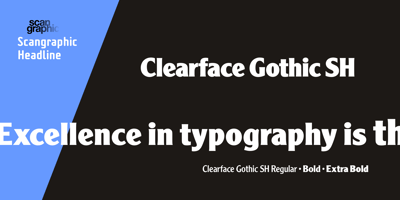
The Clearface Gothic SH Font is an excellent choice for designs that demand a classic, robust, and highly legible sans-serif aesthetic with a touch of vintage warmth. Imagine it gracing the headlines of traditional advertisements, adding an authoritative yet inviting feel to corporate branding, or bringing a distinctive, timeless vibe to editorial layouts. It's also perfectly suited for captivating poster designs, impactful packaging, and any project where you want to convey reliability, heritage, and a sense of enduring quality. With its strong, clear forms and often slightly humanist influences, the Clearface Gothic SH Font is ideal for projects that aim for visual prominence and a memorable, dignified impression.
What makes the Clearface Gothic SH Font truly exciting is its remarkable ability to blend established typographic principles with a warmth that makes it incredibly inviting. It feels both strong and approachable, ensuring your message is not just seen, but respected and understood with ease. This font is designed for excellent legibility across various applications, from commanding headlines to supportive sub-text. It injects a sense of classic gravitas and dependable clarity into your designs, making it a reliable workhorse for a wide array of creative and business applications. The Clearface Gothic SH Font Free Download offers a fantastic opportunity to infuse your projects with this distinctive character.
The Clearface Gothic SH Font family is typically designed to offer a comprehensive range of weights and styles, maximizing its adaptability for diverse design requirements. While specific family members can vary, you can often expect to find:
• Clearface Gothic SH Thin
• Clearface Gothic SH Light
• Clearface Gothic SH Regular
• Clearface Gothic SH Medium
• Clearface Gothic SH SemiBold
• Clearface Gothic SH Bold
• Clearface Gothic SH Black
• Clearface Gothic SH Italic (or Oblique versions for various weights)
These extensive variations provide designers with ample flexibility to create intricate visual hierarchies, from delicate accents to impactful headlines, ensuring optimal performance across a wide array of applications while maintaining the font's signature bold and timeless appearance.